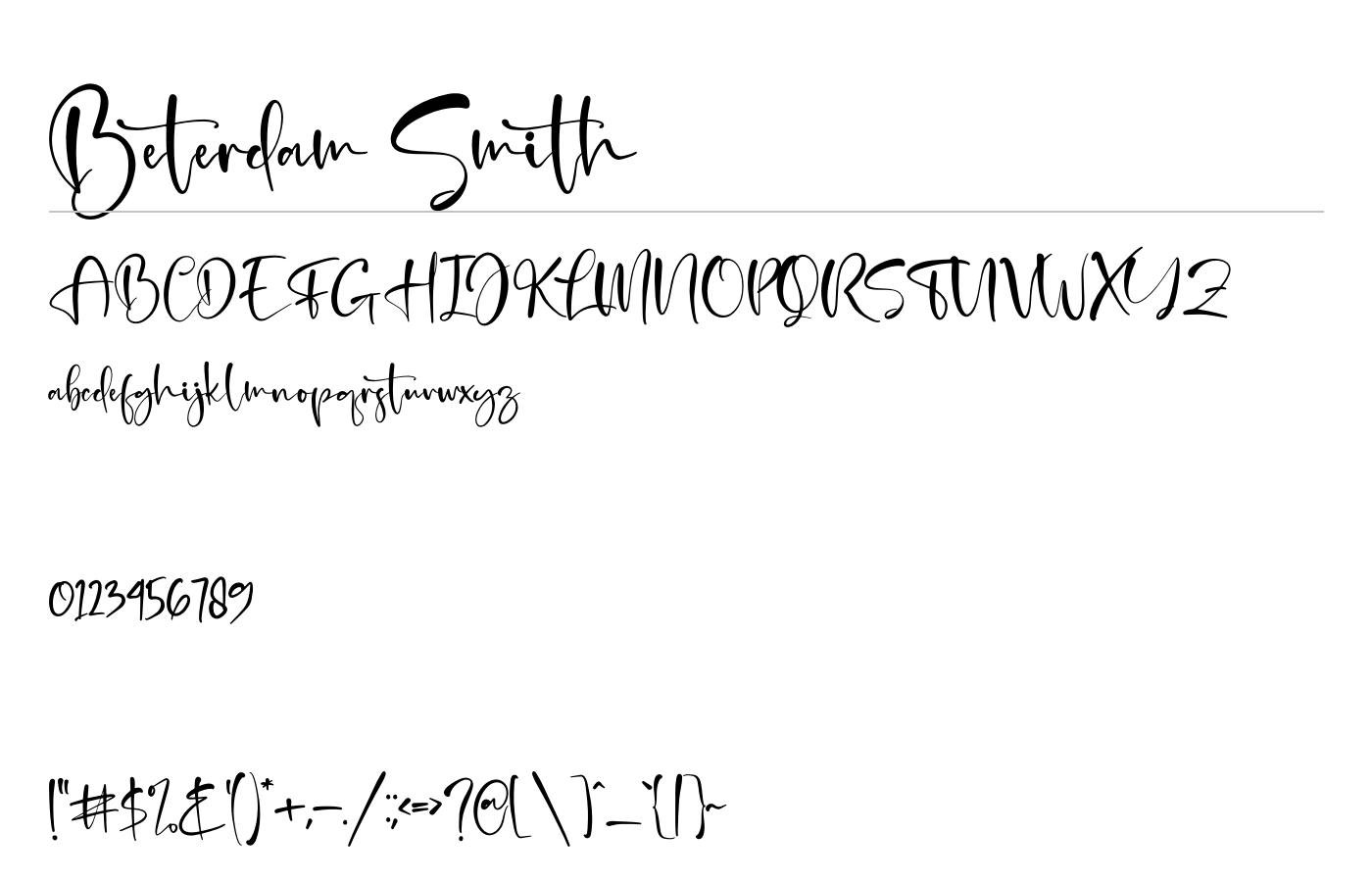
Beterdam Smith is a playful and elegant handwritten script font with a lively, flowing style that combines thick and thin strokes for a dynamic feel. Its tall, narrow letterforms and unique, whimsical character shapes make it perfect for creative branding, invitations, and stylish headlines. This font adds a personal, charming touch to designs seeking a modern yet handwritten look.
Beterdam Smith Font
About Beterdam Smith Font